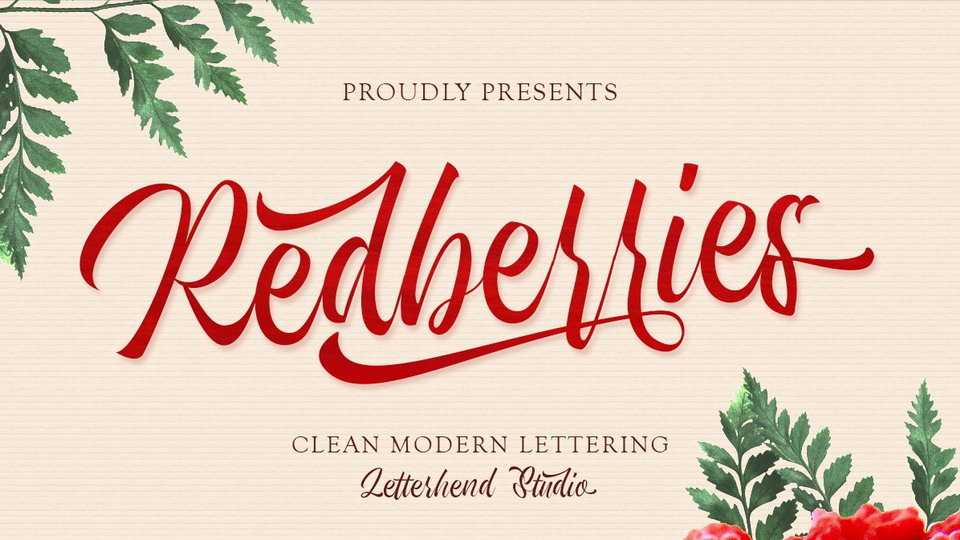
Download Redberries font, a beautiful and unique modern calligraphy script typeface. Redberries is perfectly made to be applied especially in logo, greeting, wedding cards, packaging, fashion, make up, novels, labels or any type of advertising purpose.